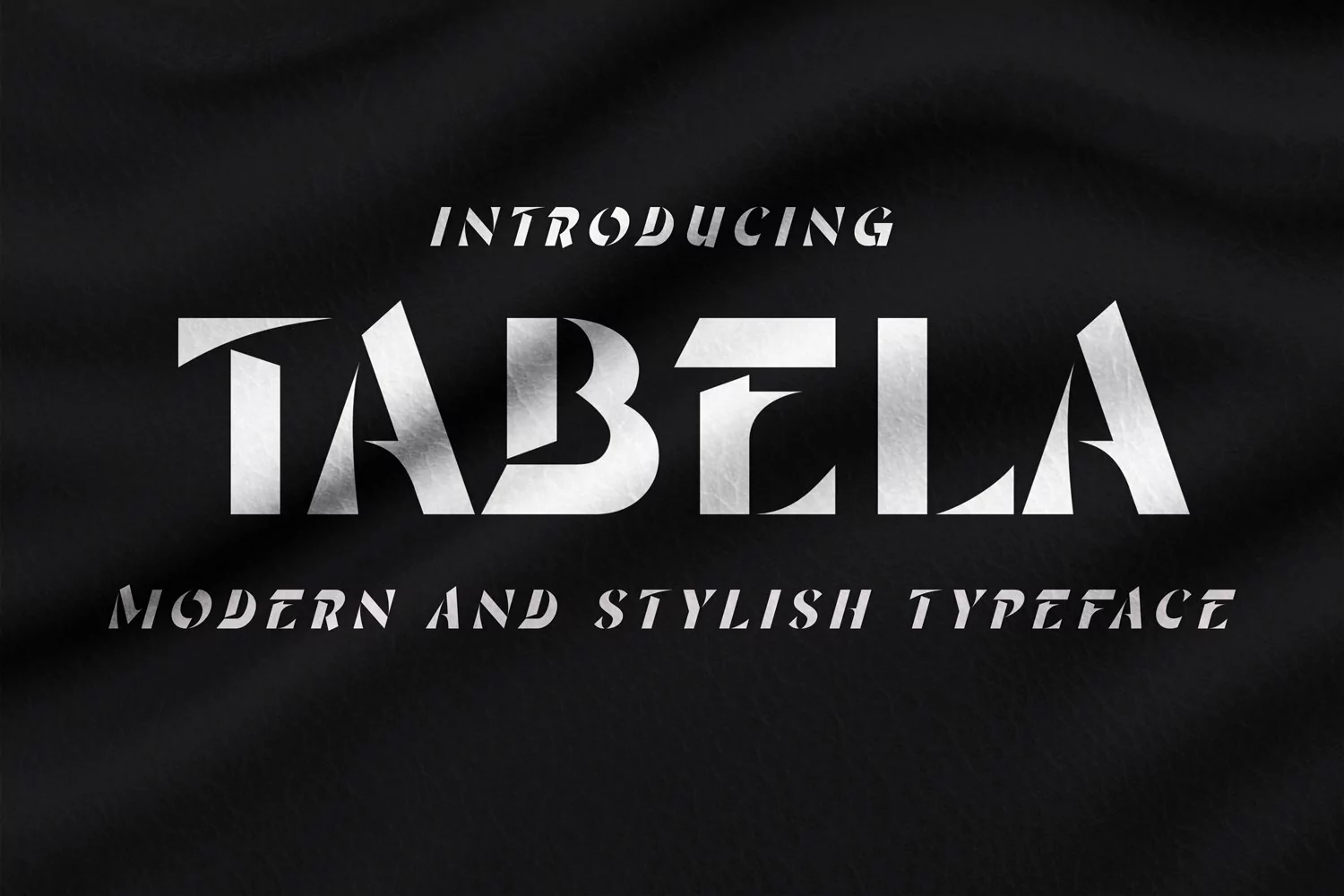
TABELA Font is unique futuristic and cyberpunk type font design. Perfect if you need a dose of fun in your project. With a vision to create an elegant looks to any design project, it's perfect ingredient to create any header, typographic logo, headline, or any design project you're working on.